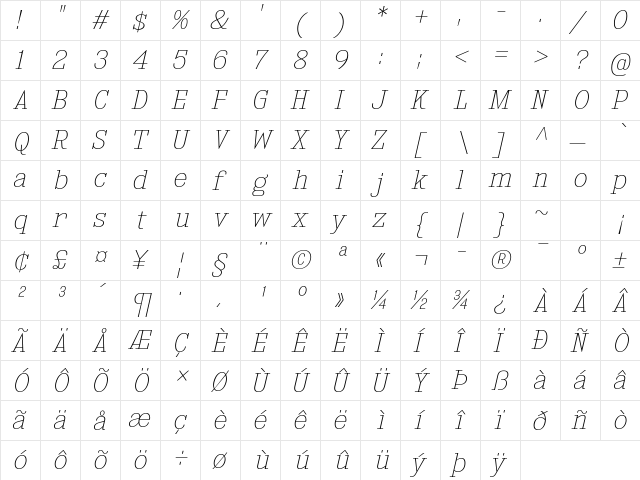
Kingsbridge UltraLight Italic
Design Context for Kingsbridge Typeface
Kingsbridge offers clean, dependable letterforms without strong stylistic allegiance, making it a practical choice for designers who need flexibility. The slanted form adds forward momentum and visual energy. Its slender proportions lend an understated elegance to any composition.
Pro Tip: Try Kingsbridge for annotation and caption copy alongside an upright companion — the contrast in angle creates a dynamic but ordered typographic system.